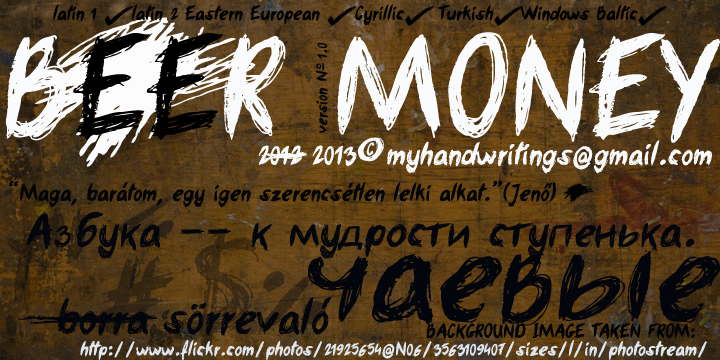
BEER MONEY is a hand drawn (scribble) font with language extentions and some funny features Latin1 Latin2 Eastern European Cyrillic Turkish Windows Baltic and correction signs , try it! : < crosses out the word written before it << longer cross out <<< even longer cross out >scribble >>pipe typeing „nummer” makes the No. sign I am using it for my comic strips and it's website, feel free to check it out http://www.rustytheedgehog.com This font is free for personal and commercial use , but you can make a SMALL DONATION if you think it’s worth a BEER! I would respect that a lot! I would also appreciate feedbacks or kerning help mostly in case of cyrillic issues may occure. I hope you enjoy this font! Cheers! Roland contact myhandwritings@gmail.com homepage http://www.rolandhuse.com |